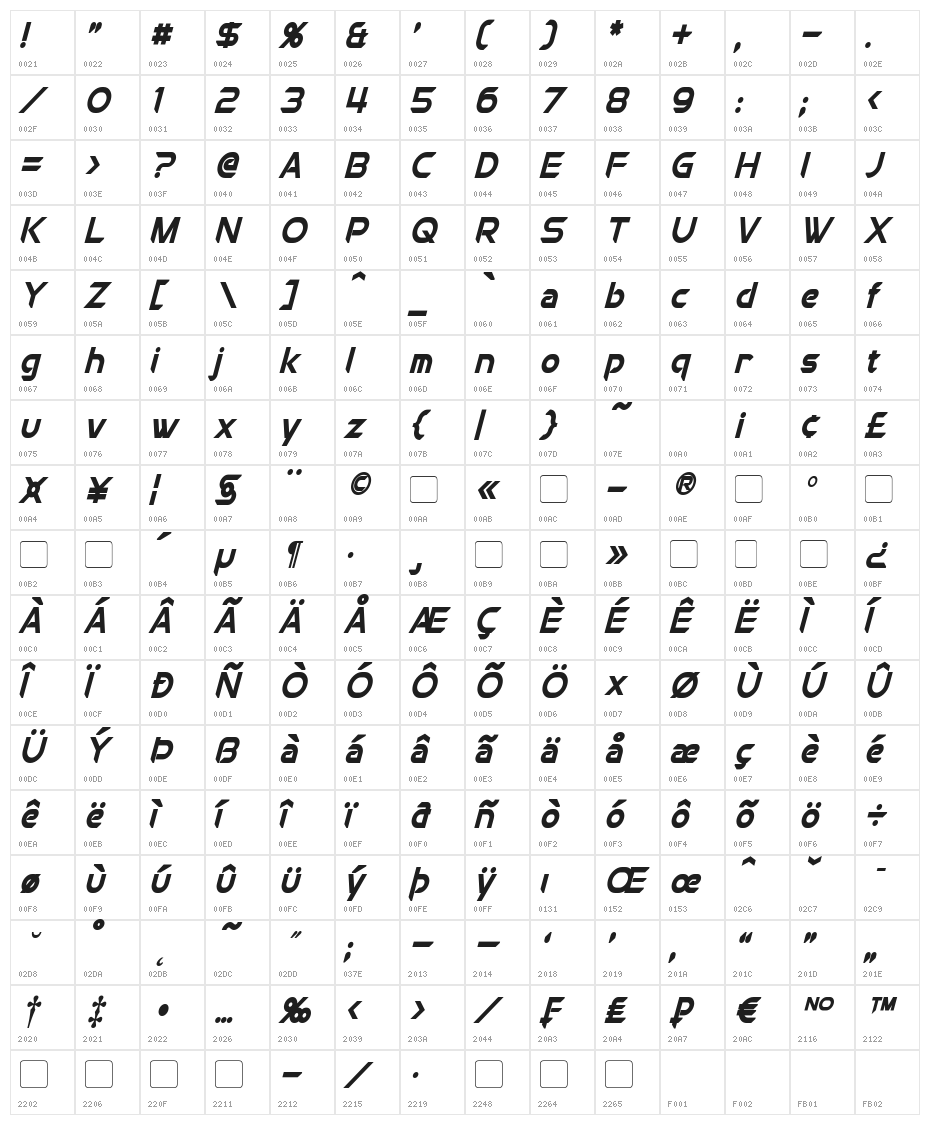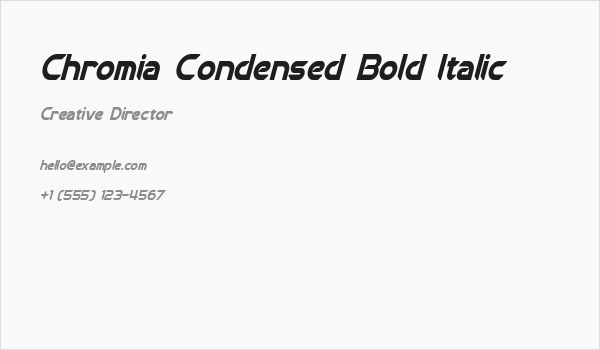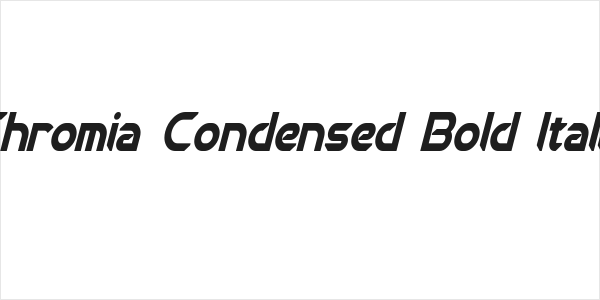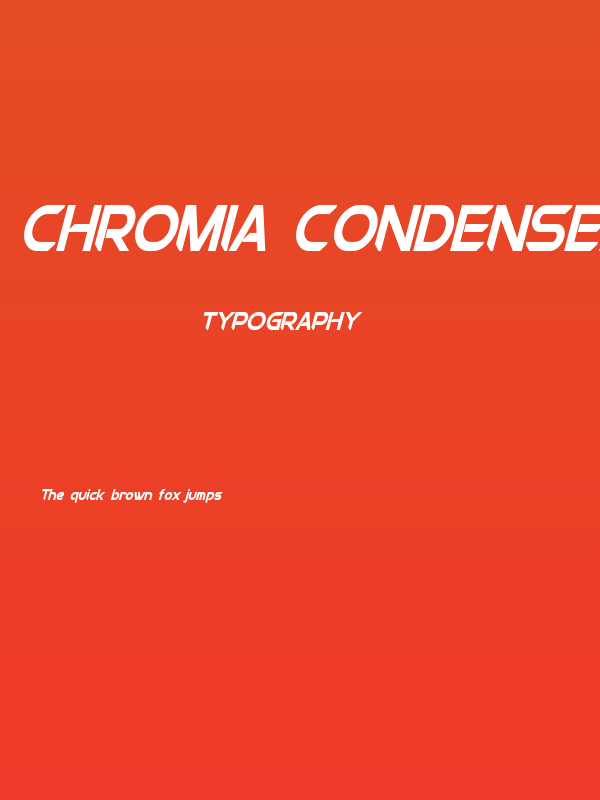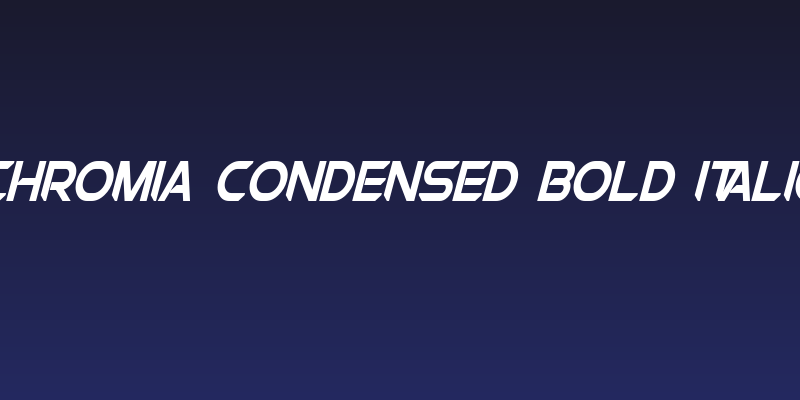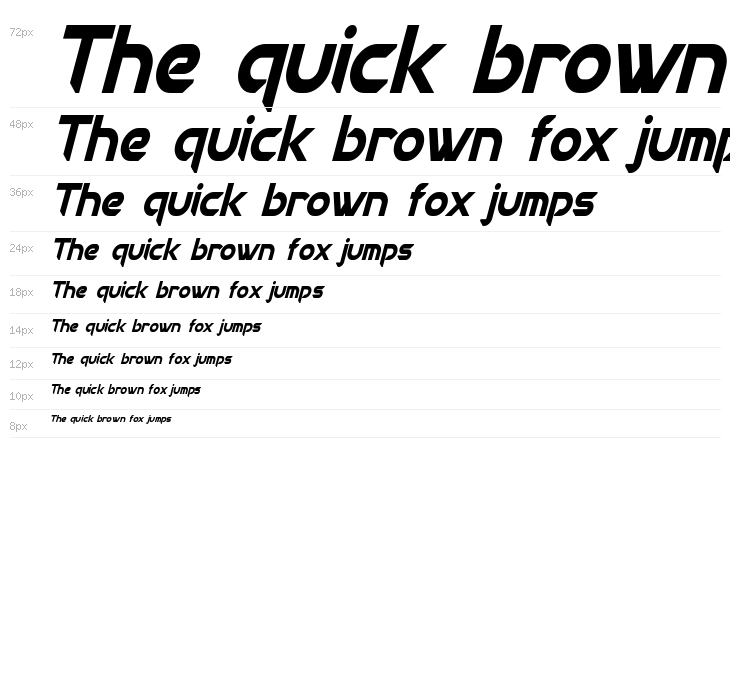
Chromia Condensed Bold Italic Font
Chromia Condensed Bold Italic Description
This font exhibits a bold and italicized style with a condensed width, giving it a dynamic and modern appearance. The characters are sharply angled, providing a sense of movement and speed. The uppercase and lowercase letters maintain a consistent slant, enhancing the italic effect. The numerals and special characters follow the same stylistic cues, ensuring uniformity across all glyphs. The overall design is sleek and futuristic, making it suitable for projects that require a strong visual impact.